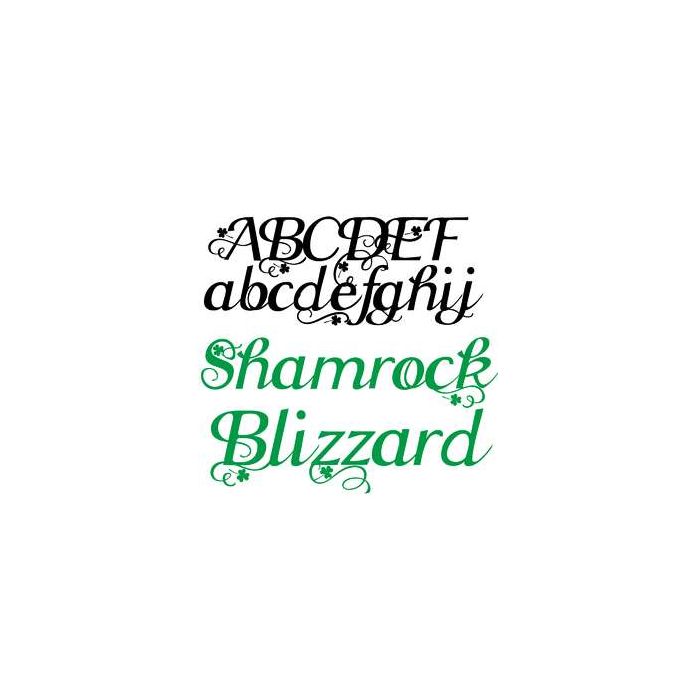
This beautiful font features flourishes and shamrocks throughout. There are many ligatures you can access through your system's character map, Silhouette Studios glyph map OR a program such as Adobe Illustrator that utilizes .otf features.